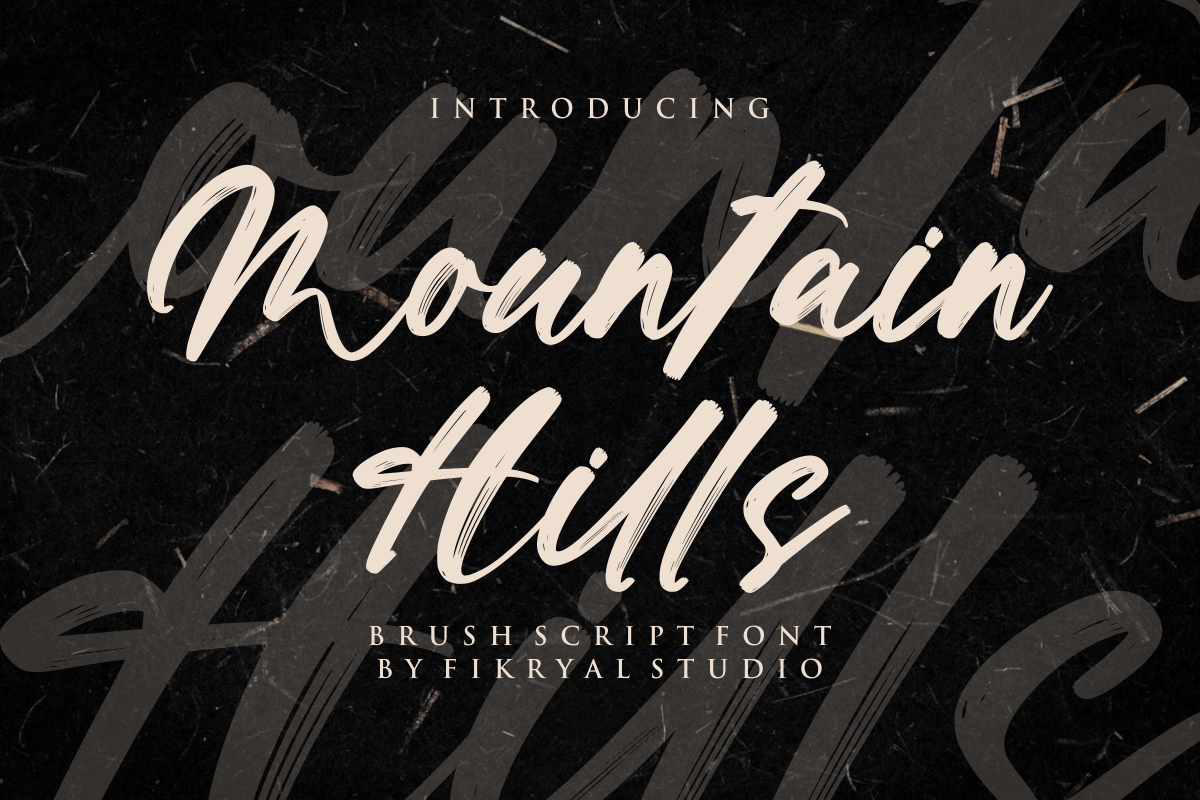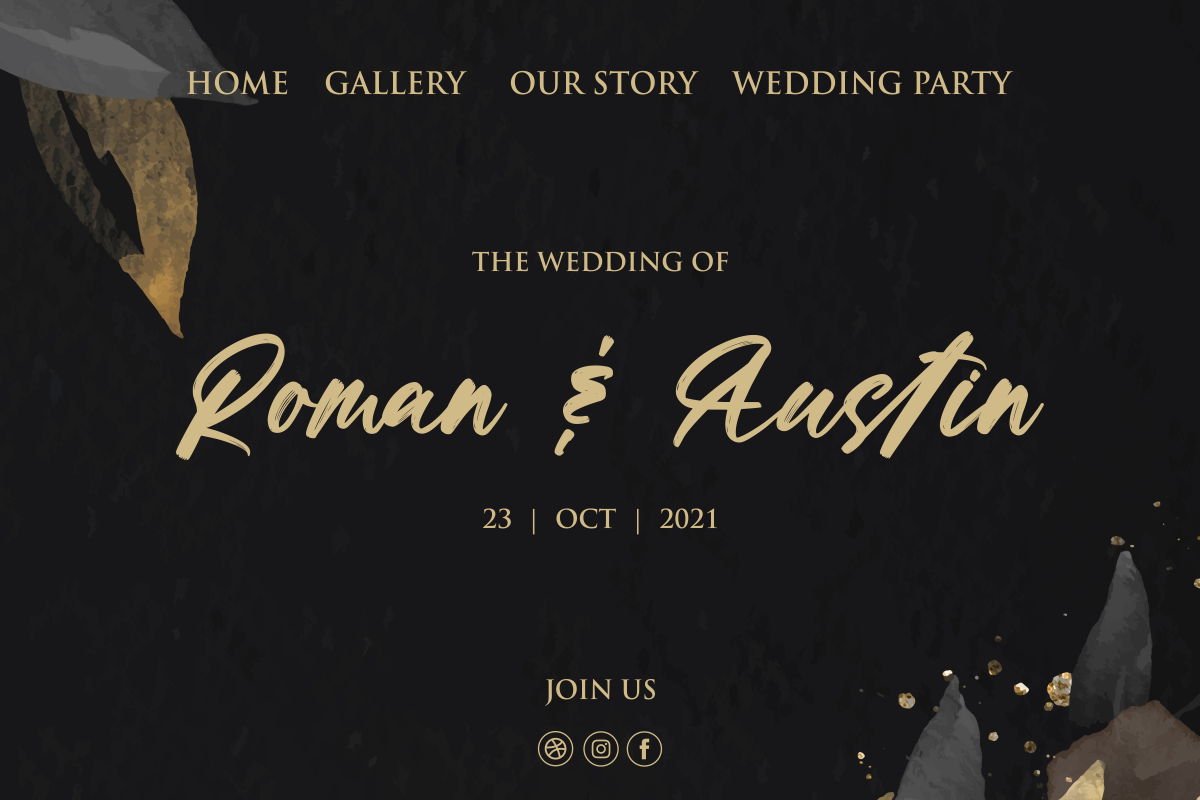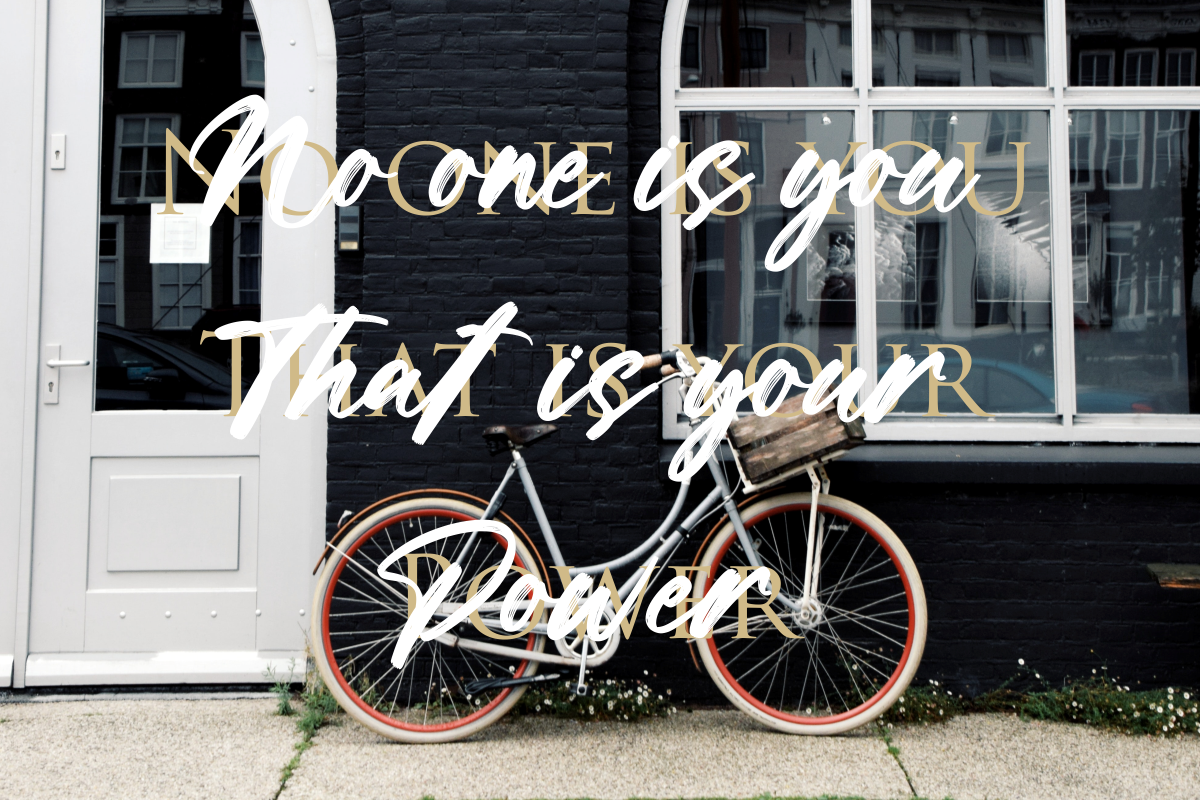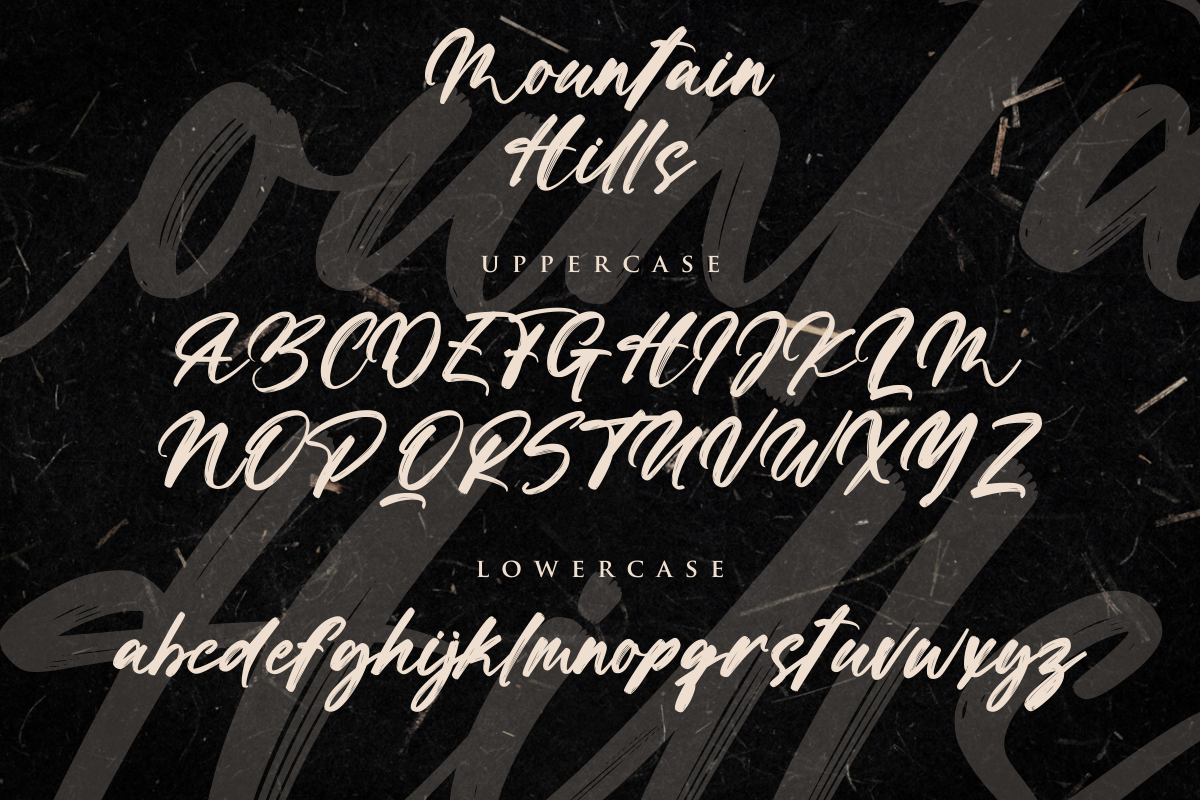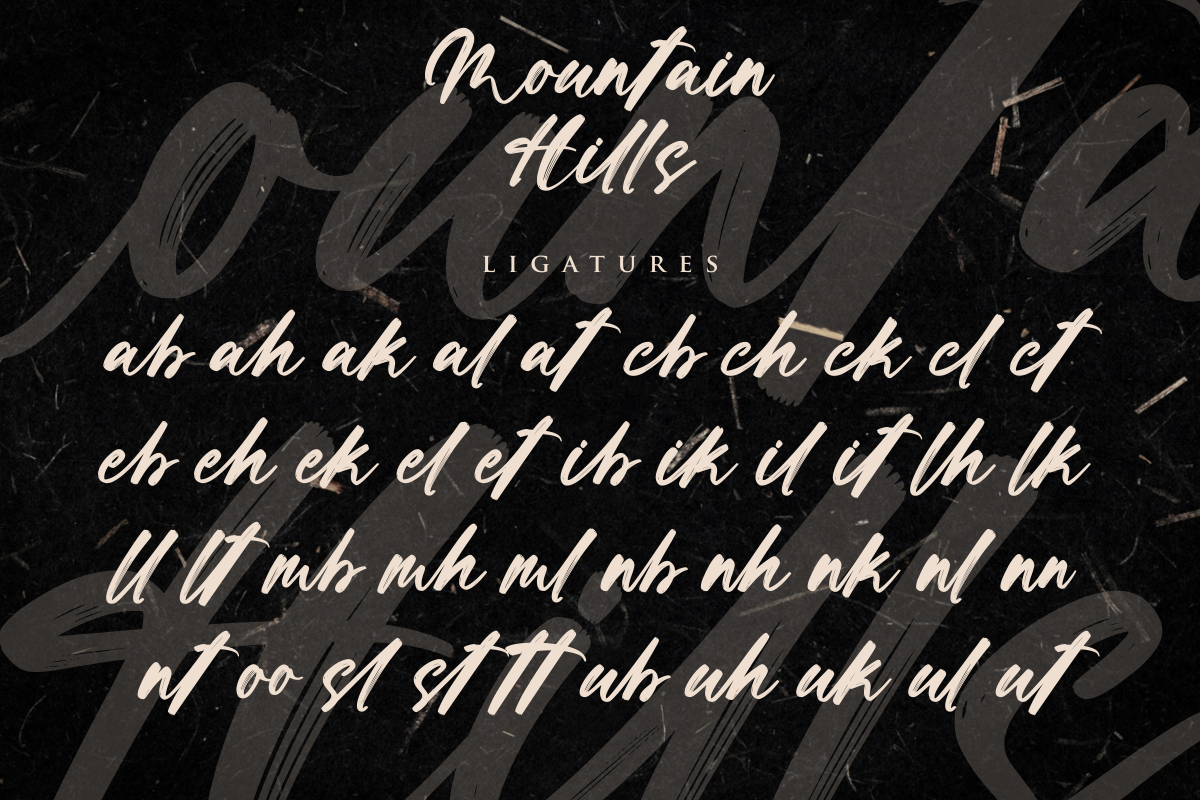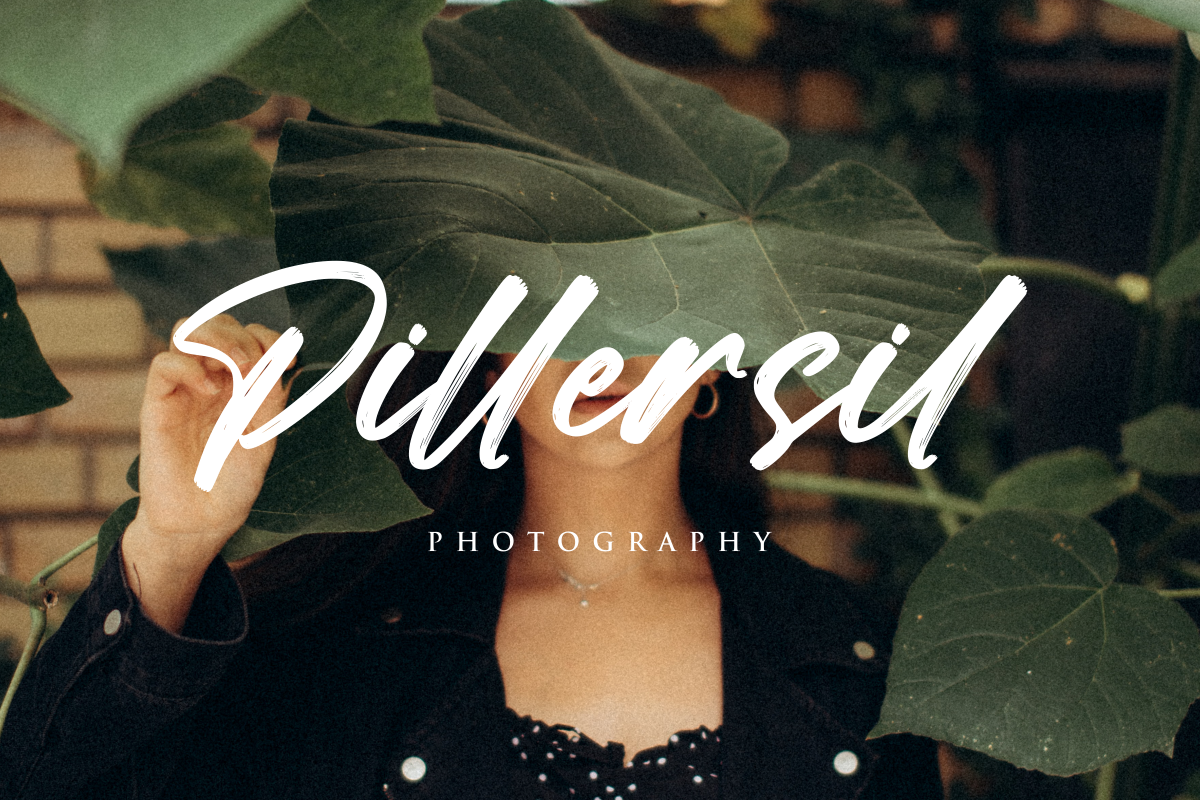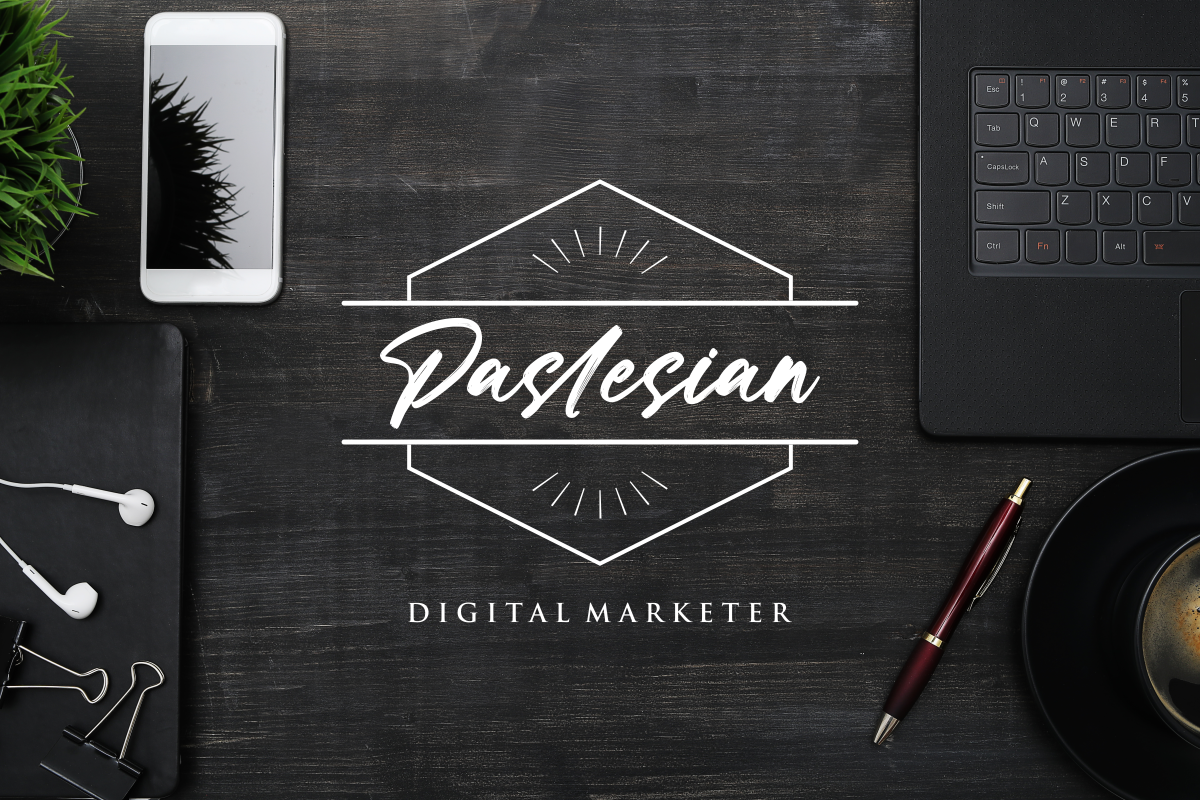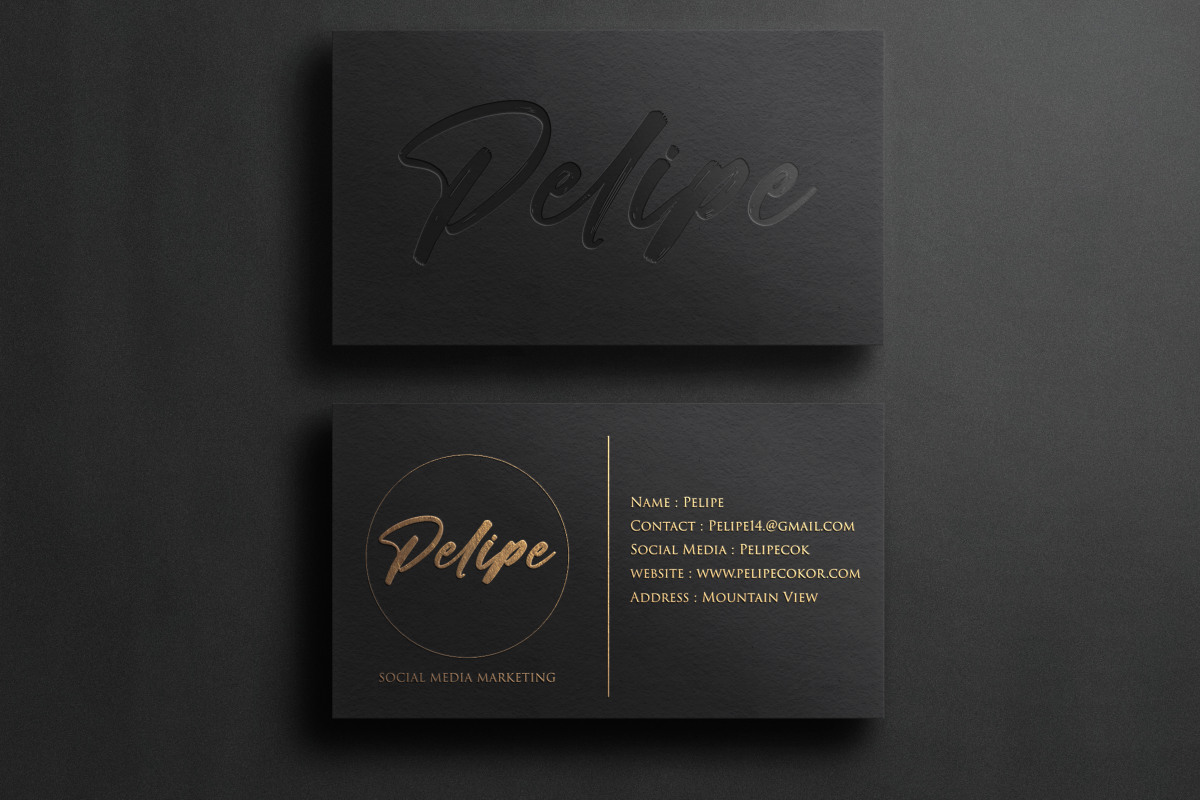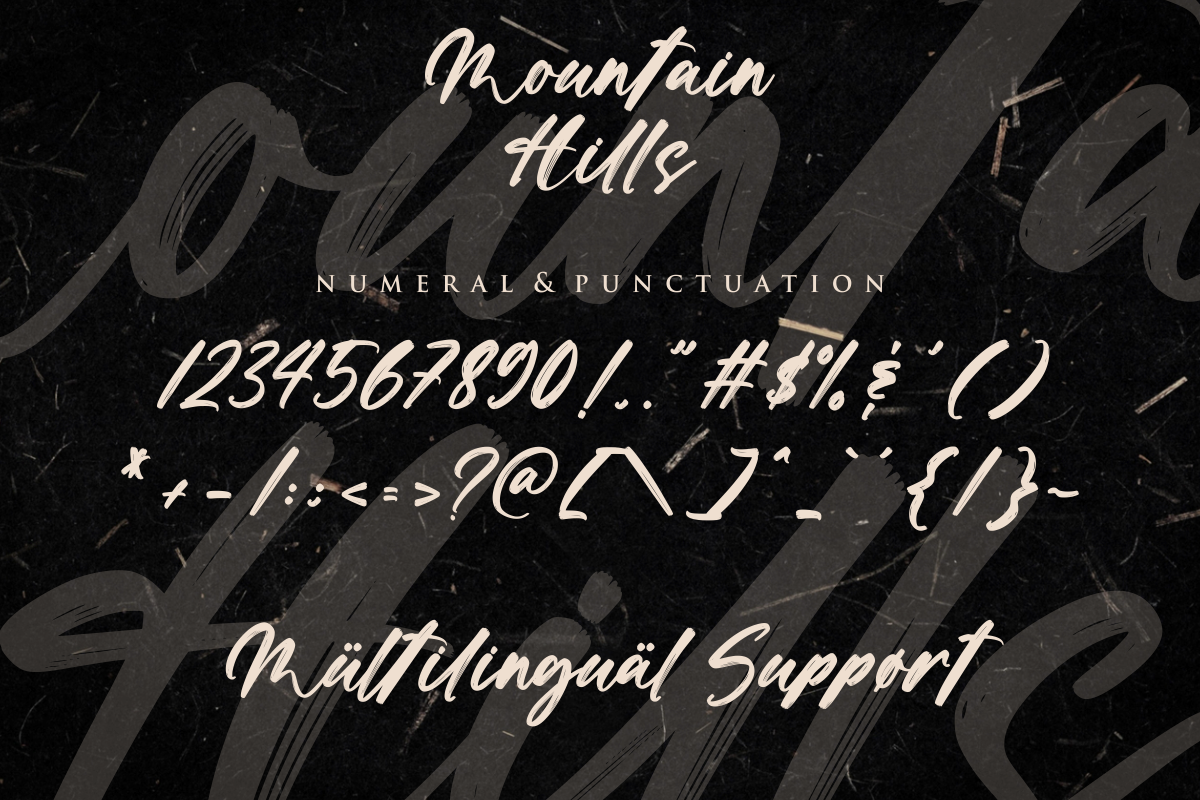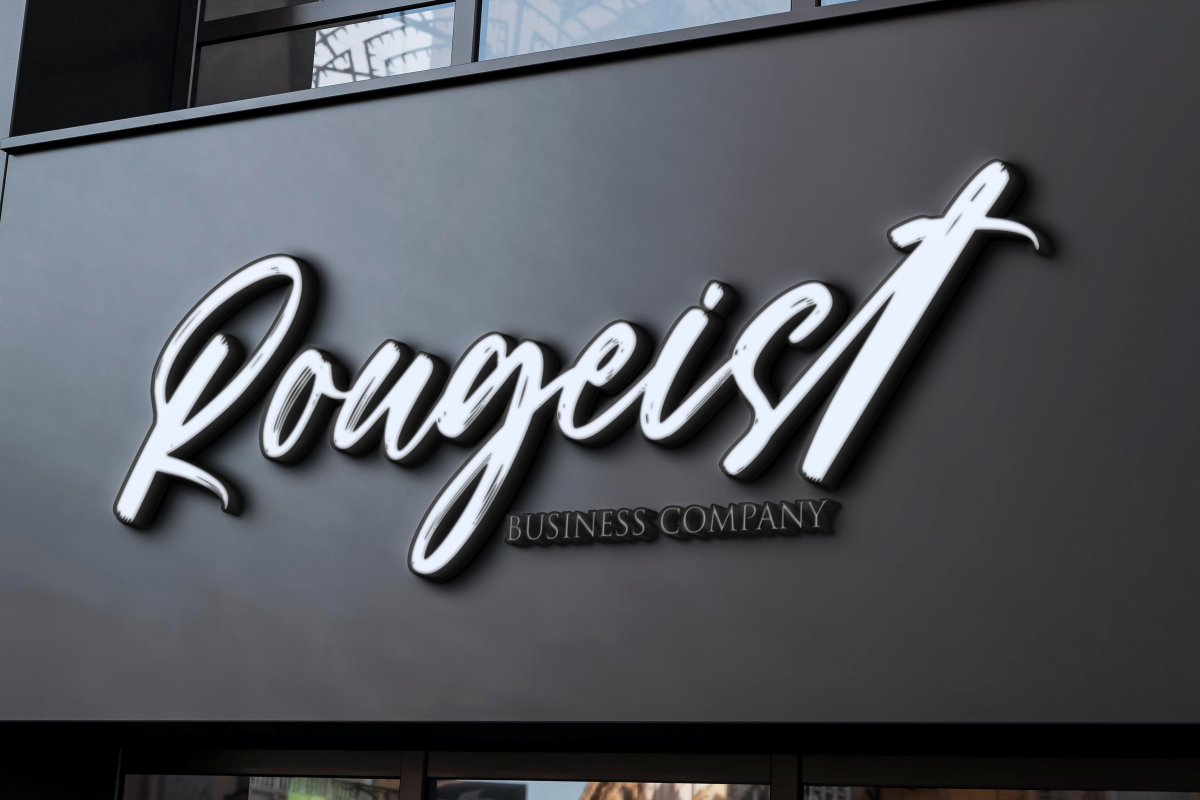
Mountain Hills - Brush Script Font
Mountain Hills – Font is a new stylish brush script font. It’s perfect for logo, branding, title, social media posts, advertisements, product packaging, product designs, label, photography, watermark, special event, magazine, web designs, etc.